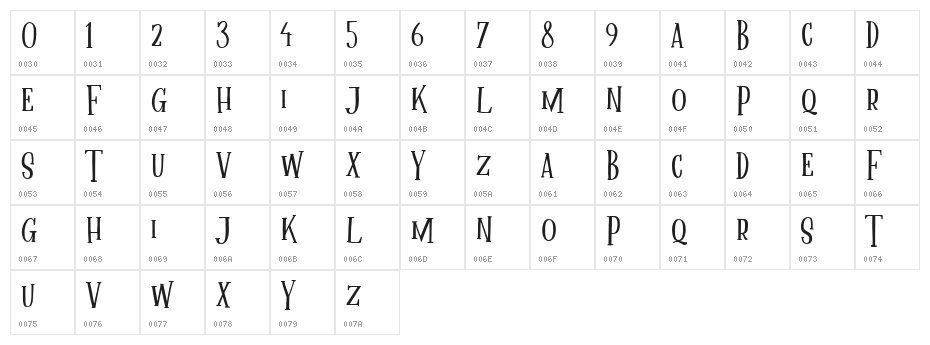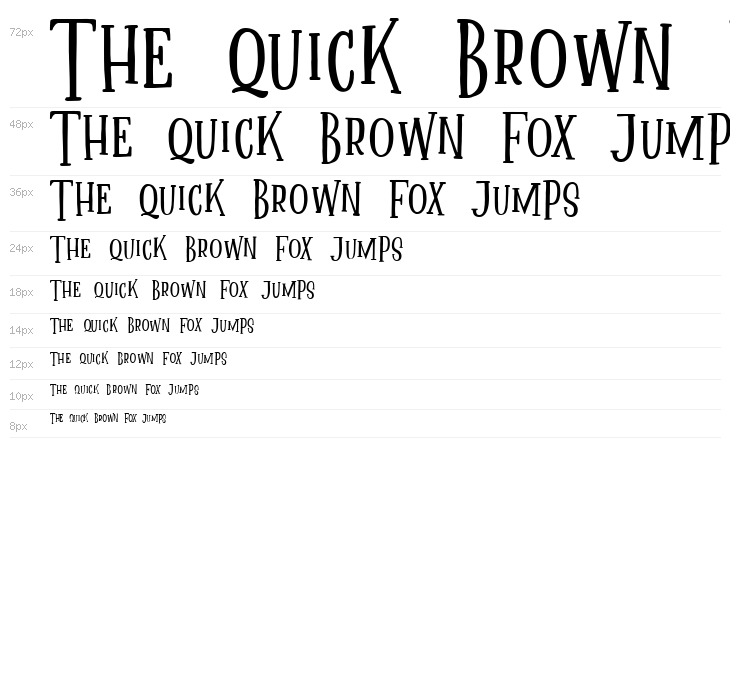
MallicaFairytaleDEMO Font
MallicaFairytaleDEMO Description
This font features a whimsical and playful style, characterized by its tall, narrow letterforms and subtle serifs. The strokes are slightly uneven, giving it a hand-drawn appearance that adds to its charm. The uppercase letters are particularly elongated, while the lowercase letters maintain a consistent height, creating a harmonious balance. The numerals are distinct and maintain the same playful aesthetic, making them easily readable. This font is perfect for projects that require a touch of fantasy or a fairytale-like quality, as it evokes a sense of magic and wonder.
| Proposed Projects | Ideal for children's books, fantasy-themed posters, and playful branding projects. |